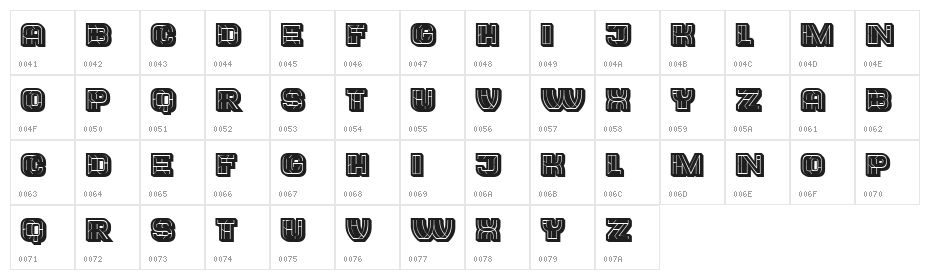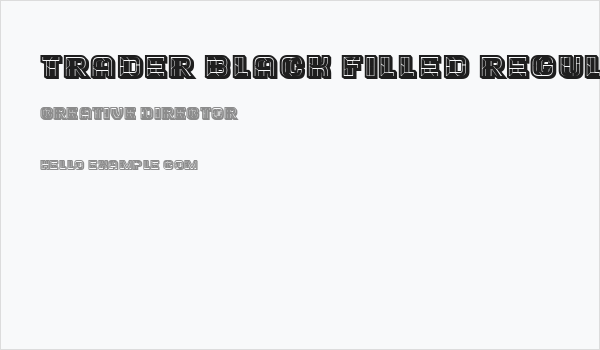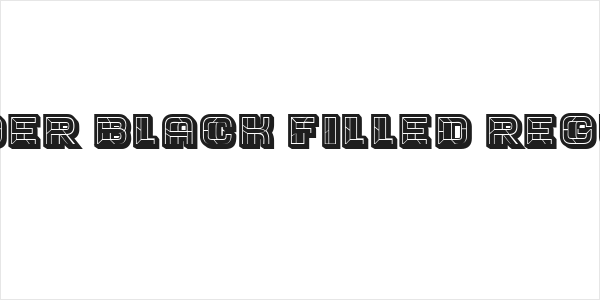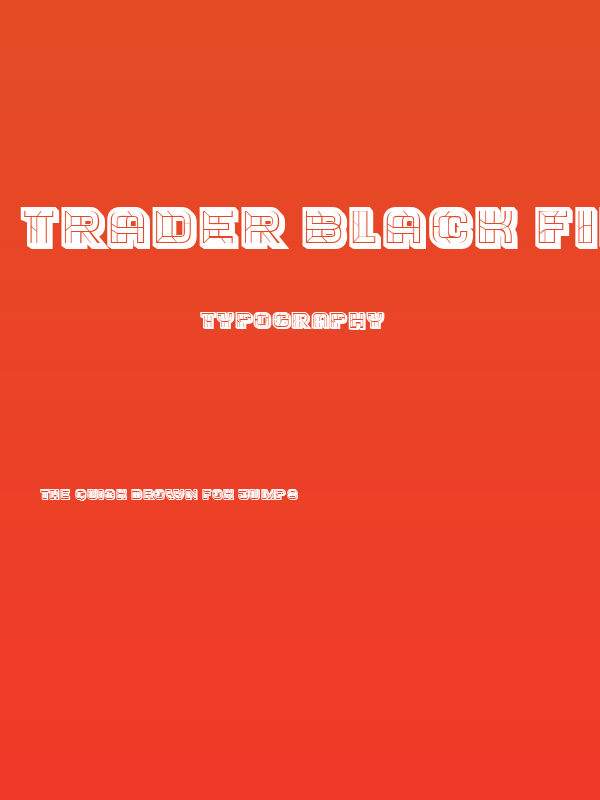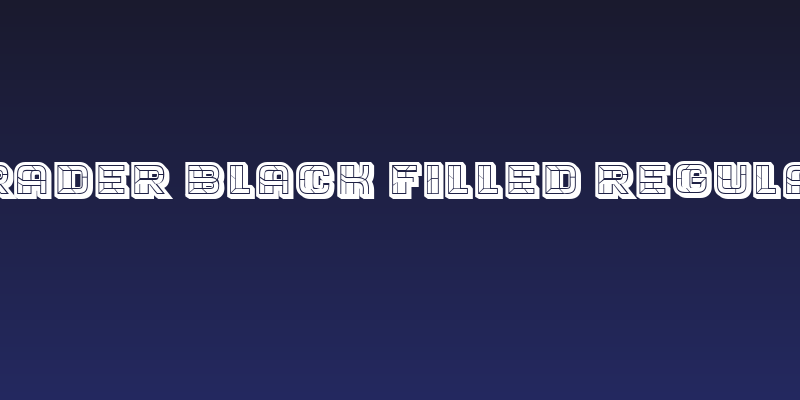
Trader Black Filled Regular Font
Trader Black Filled Regular Description
This font features a bold, geometric design with a distinct three-dimensional effect. The letters are outlined with a thick black border, creating a filled appearance that enhances its strong visual impact. The style is reminiscent of industrial and architectural elements, with clean lines and sharp angles. Each character maintains a consistent width, contributing to a uniform and structured look. The font's design is both modern and retro, making it versatile for various creative applications. Its boldness ensures readability while adding a unique flair to any project.
| Proposed Projects | Ideal for branding, posters, headlines, and any project requiring a striking, modern aesthetic. |